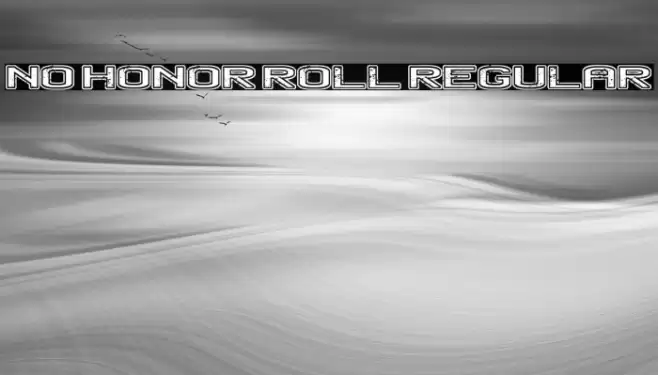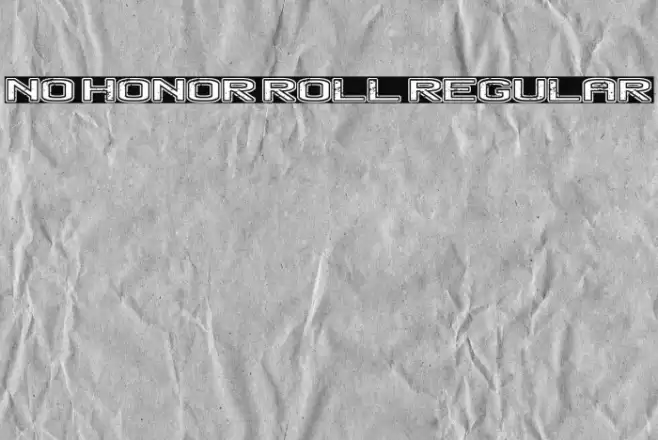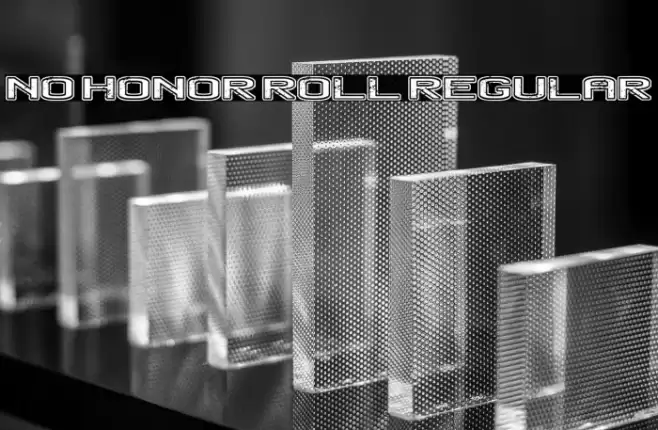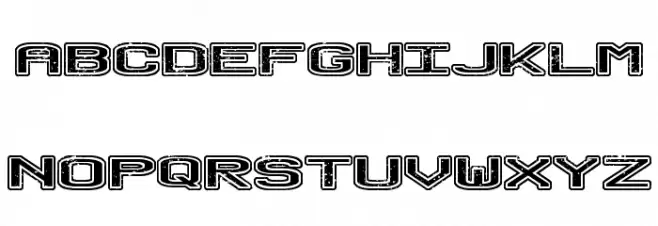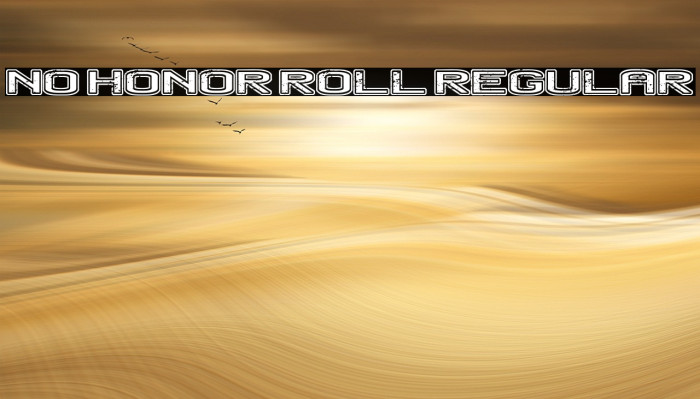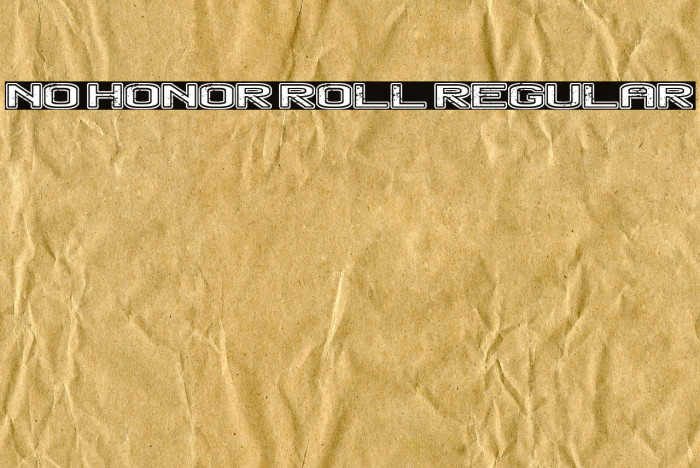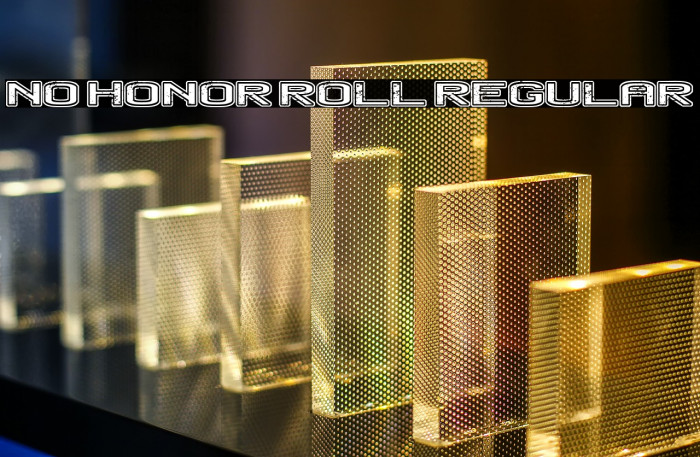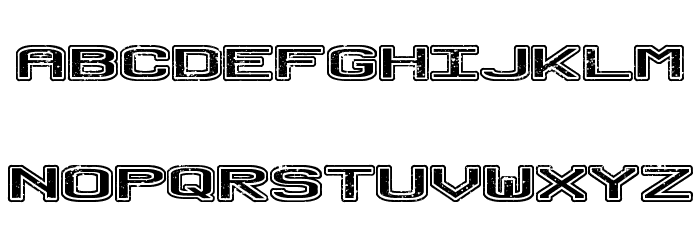
No Honor Roll Regular Font
No Honor Roll Regular Description
This font features a bold, distressed style with a strong, industrial feel. The characters have a blocky, geometric structure, enhanced by a textured, worn effect that gives them a rugged, vintage appearance. The uppercase letters are uniform in height, with consistent stroke widths that add to the boldness of the design. The distressed detailing within each letter adds a layer of complexity and visual interest, making it ideal for projects that require a gritty, urban aesthetic. The font's unique style is both eye-catching and versatile, suitable for a variety of creative applications.
A bold, distressed font with a rugged, industrial style from Distorted Eroded fonts.
- Proposed Projects: Ideal for posters, album covers, branding, and any project needing a vintage or industrial touch.
- Overall Style: Vintage